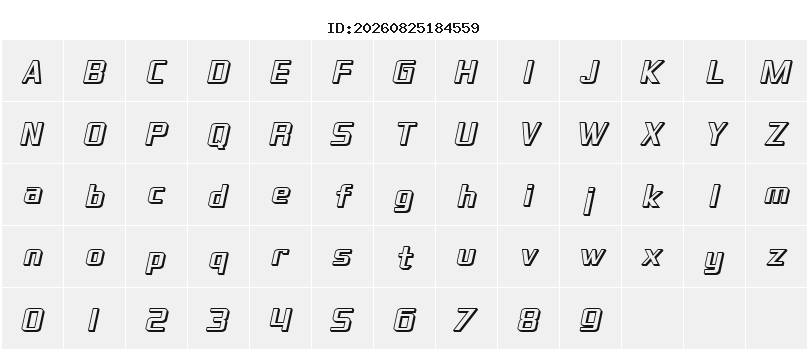
SF Theramin Gothic Shaded Preview
• Font Name: SF Theramin Gothic Shaded
• Font Style: Oblique
• Font ID: ShyFonts Type Foundry: SF Theramin Gothic Shaded Oblique: 1999
• Full Font Name: SF Theramin Gothic Shaded Oblique
• PostScript Name: SFTheraminGothicShaded-Oblique
About SF Theramin Gothic Shaded.ttf
SF Theramin Gothic Shaded.ttf is a modern, elegant sans-serif font designed for ultimate readability and visual harmony. Perfect for branding, headlines, web design, and print materials.